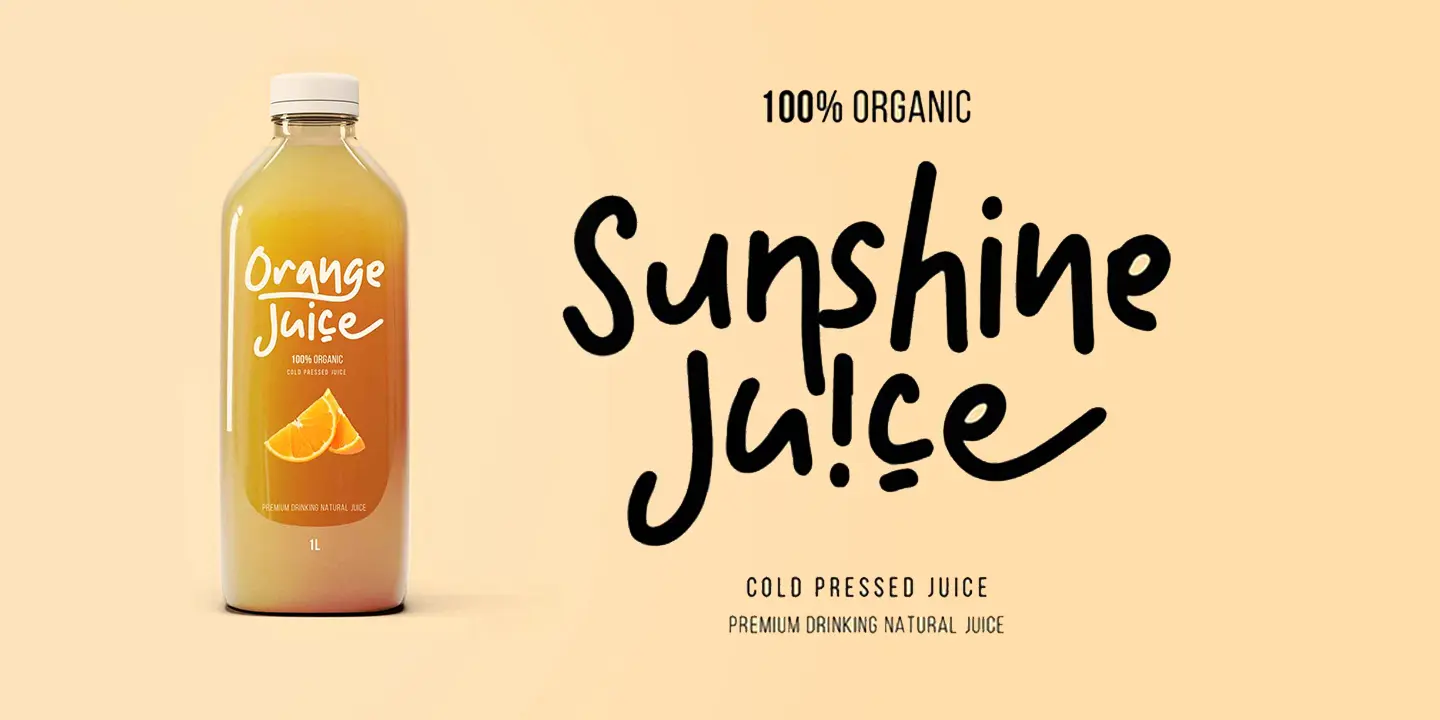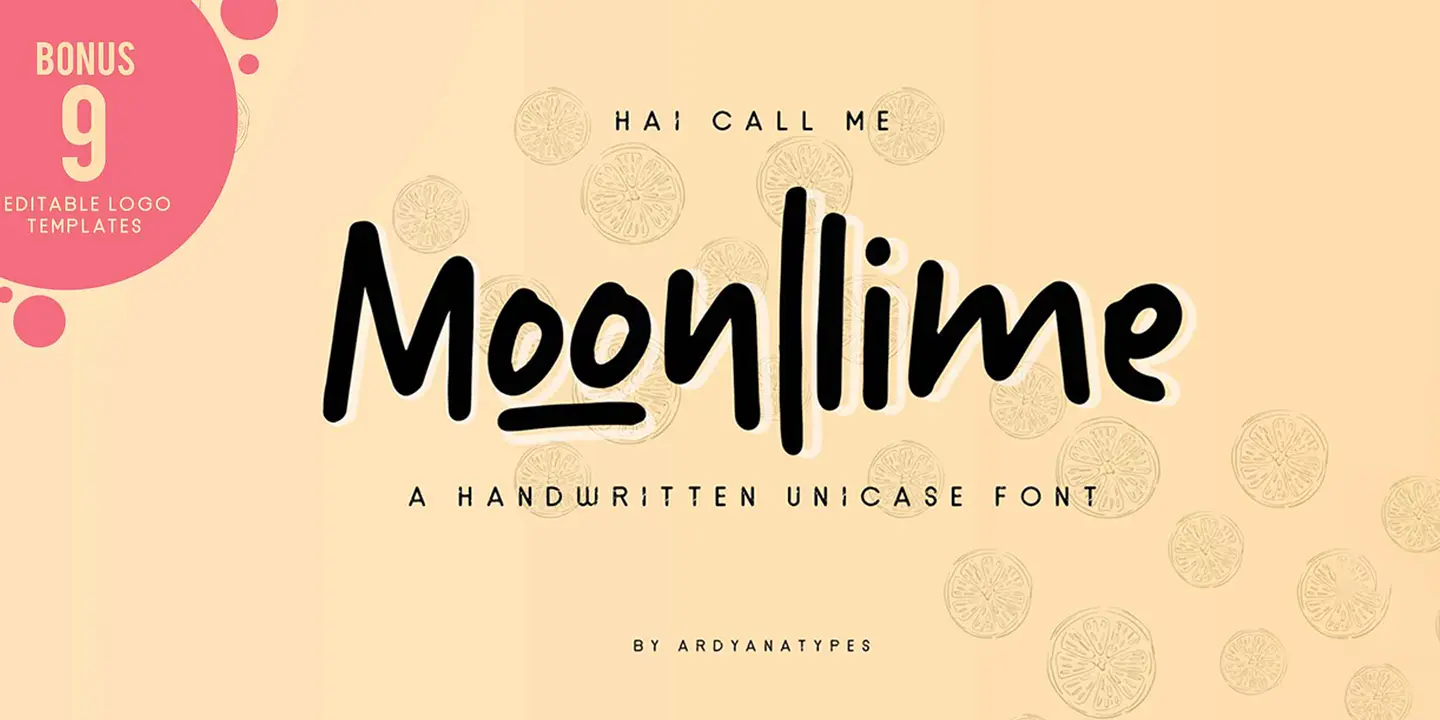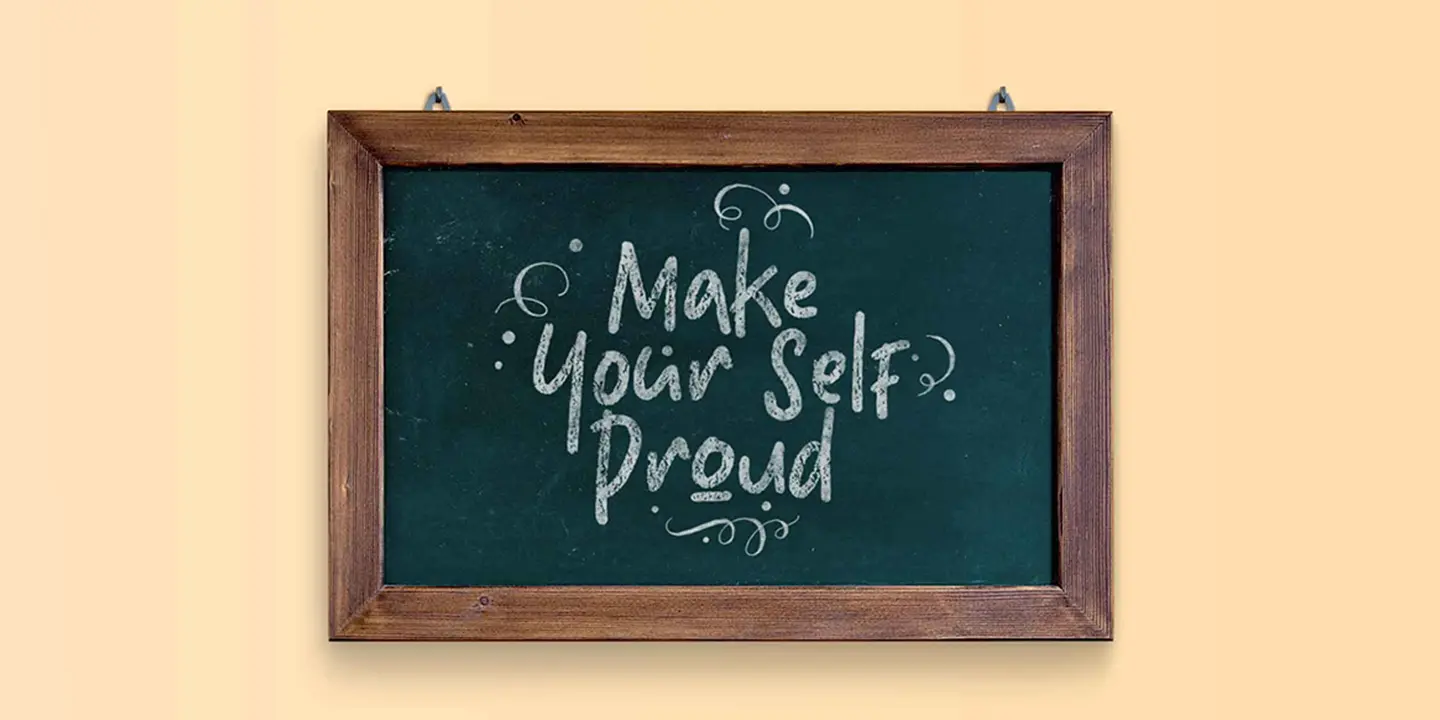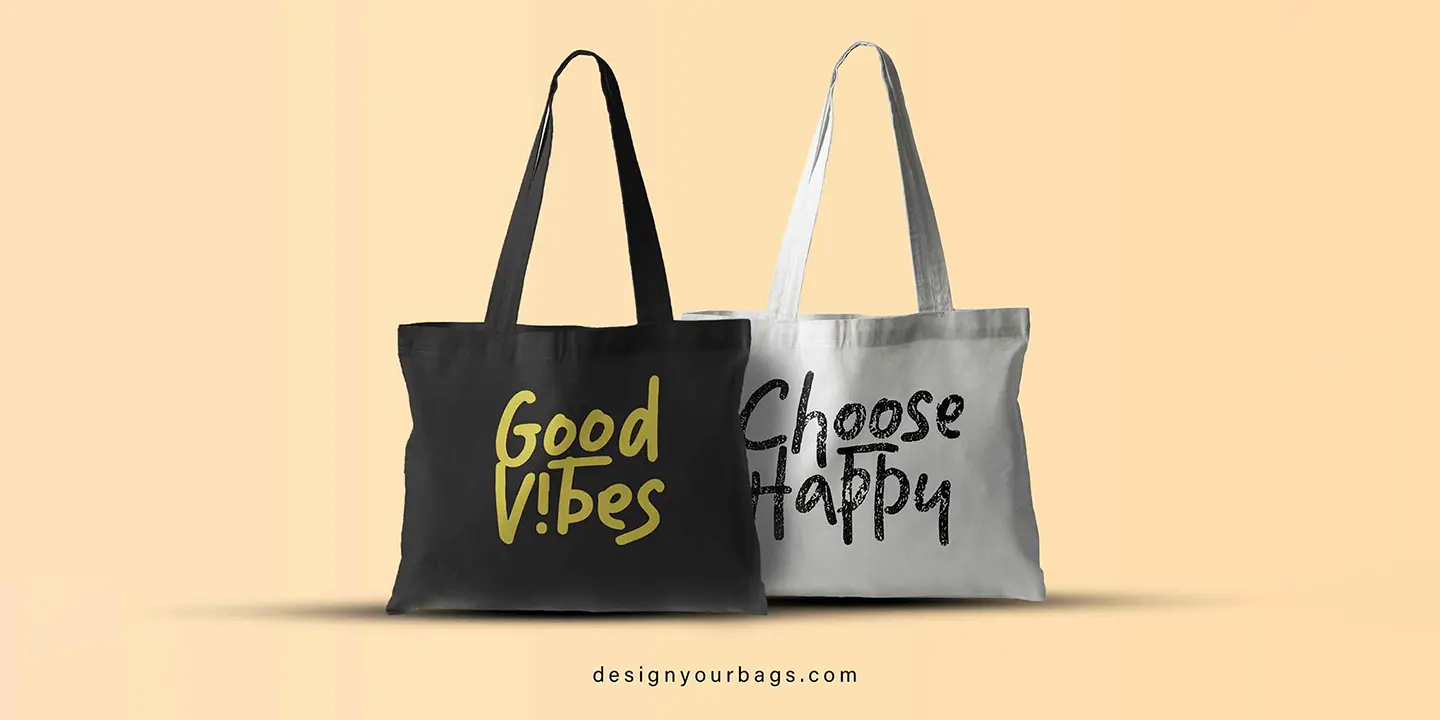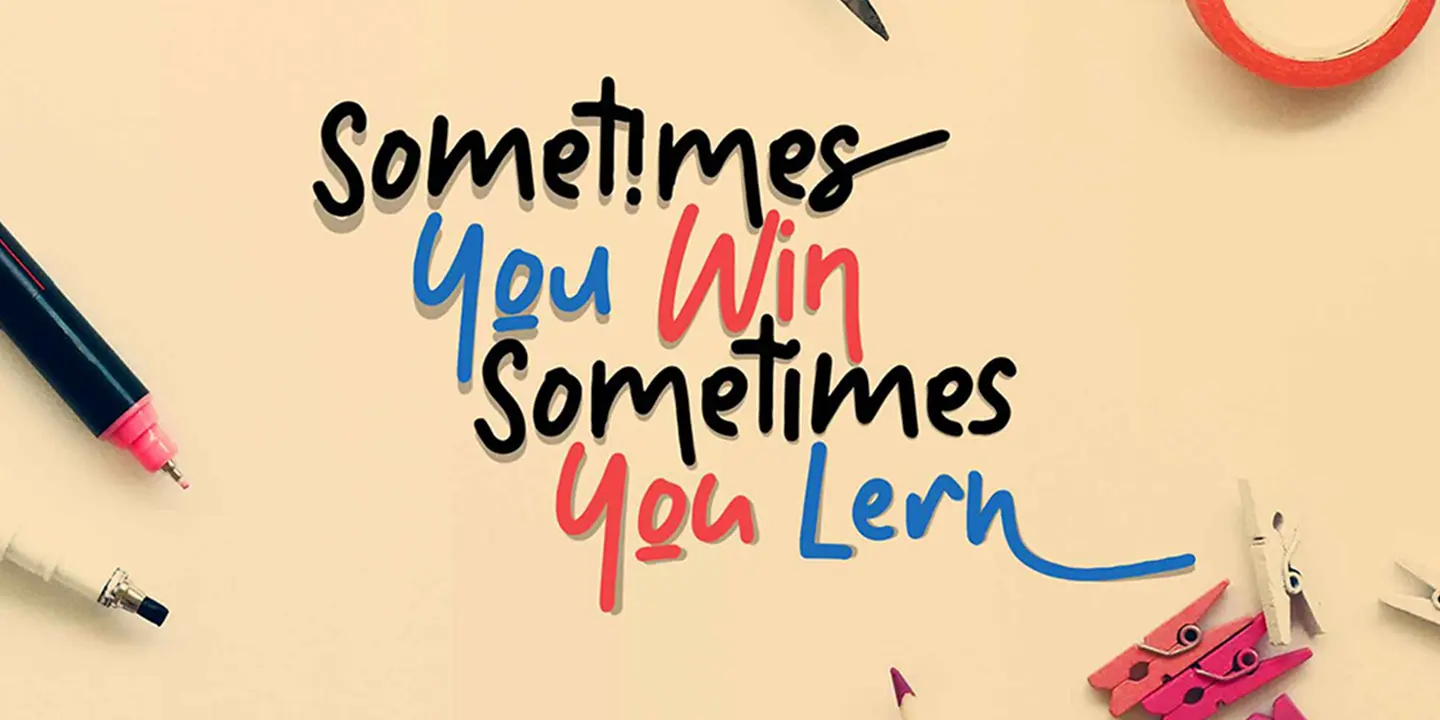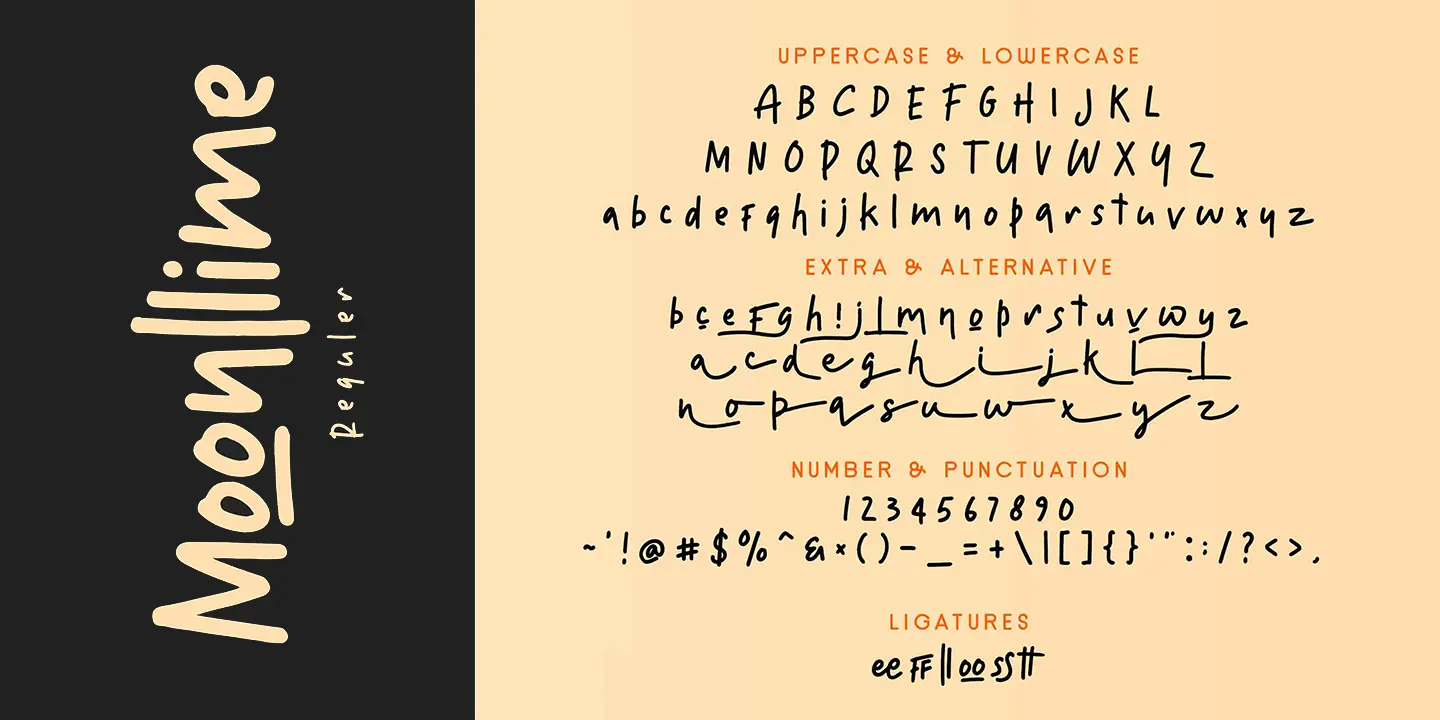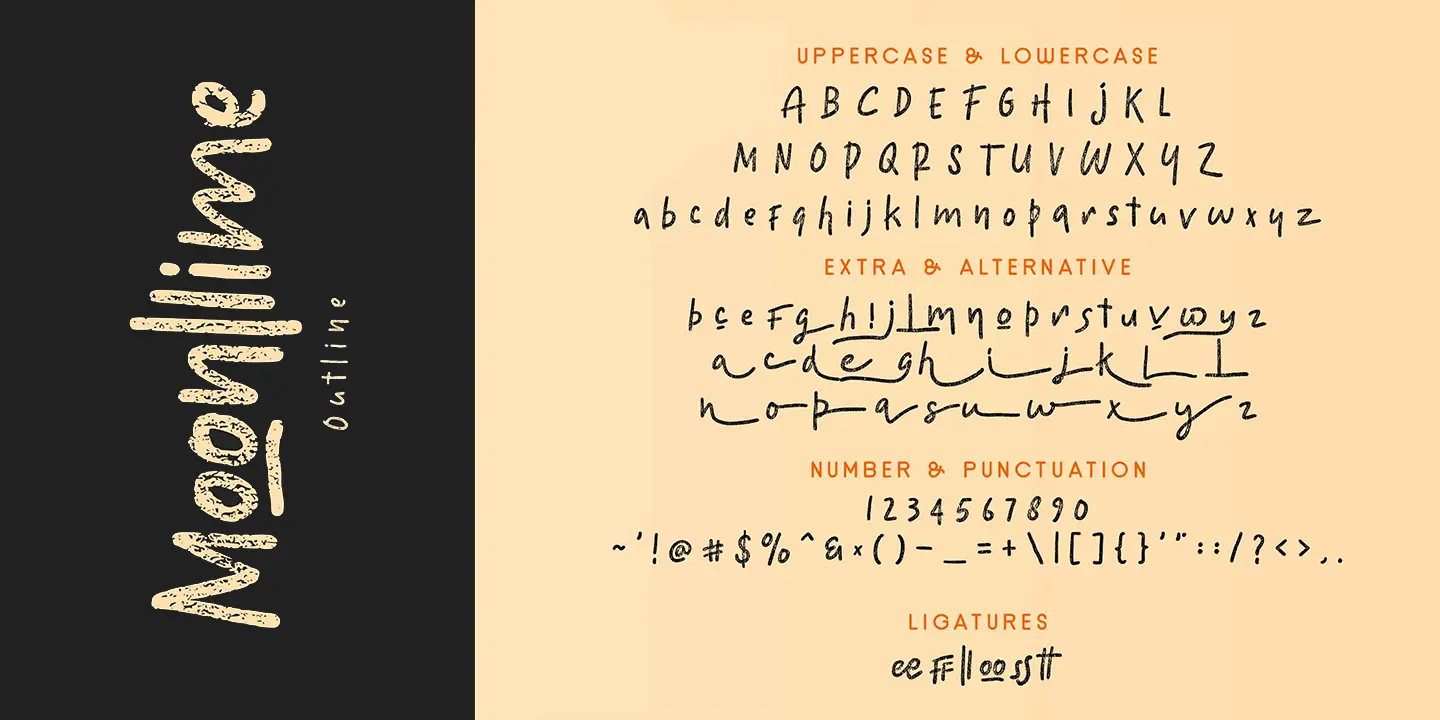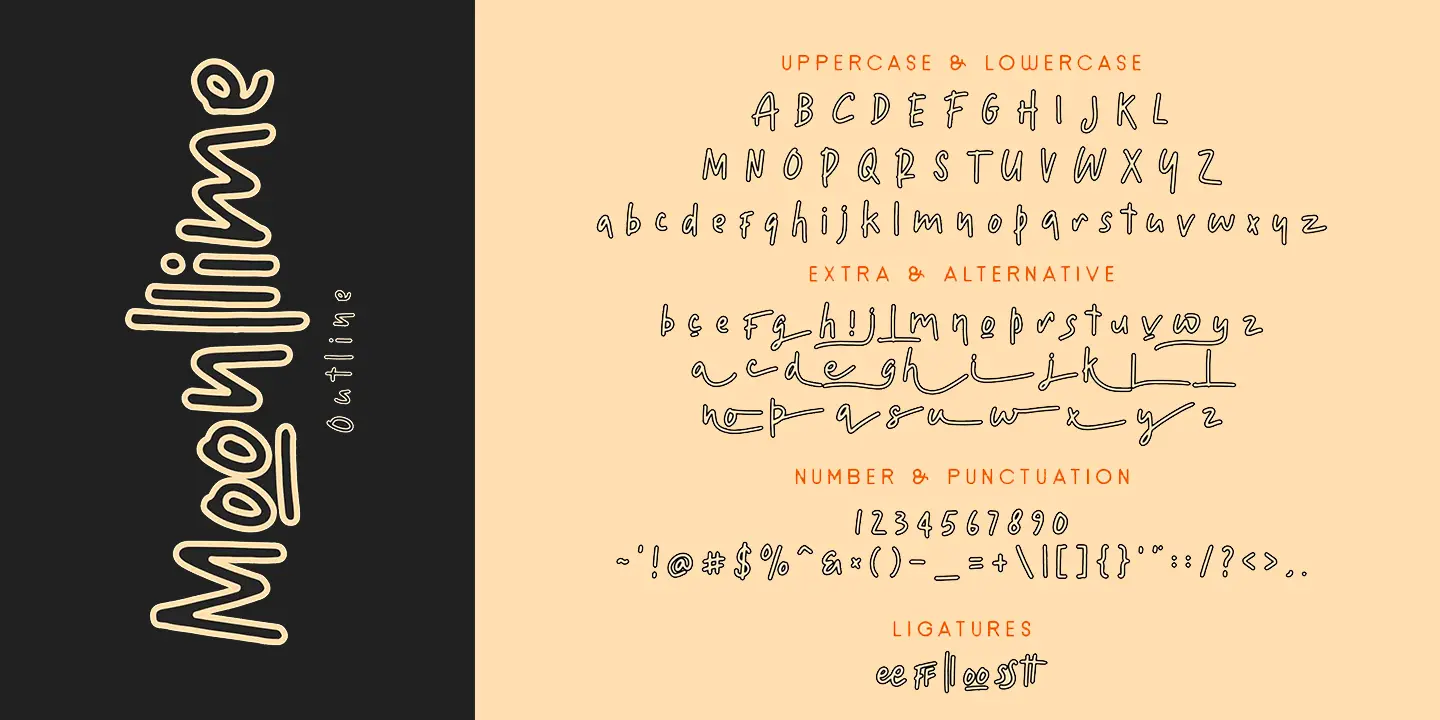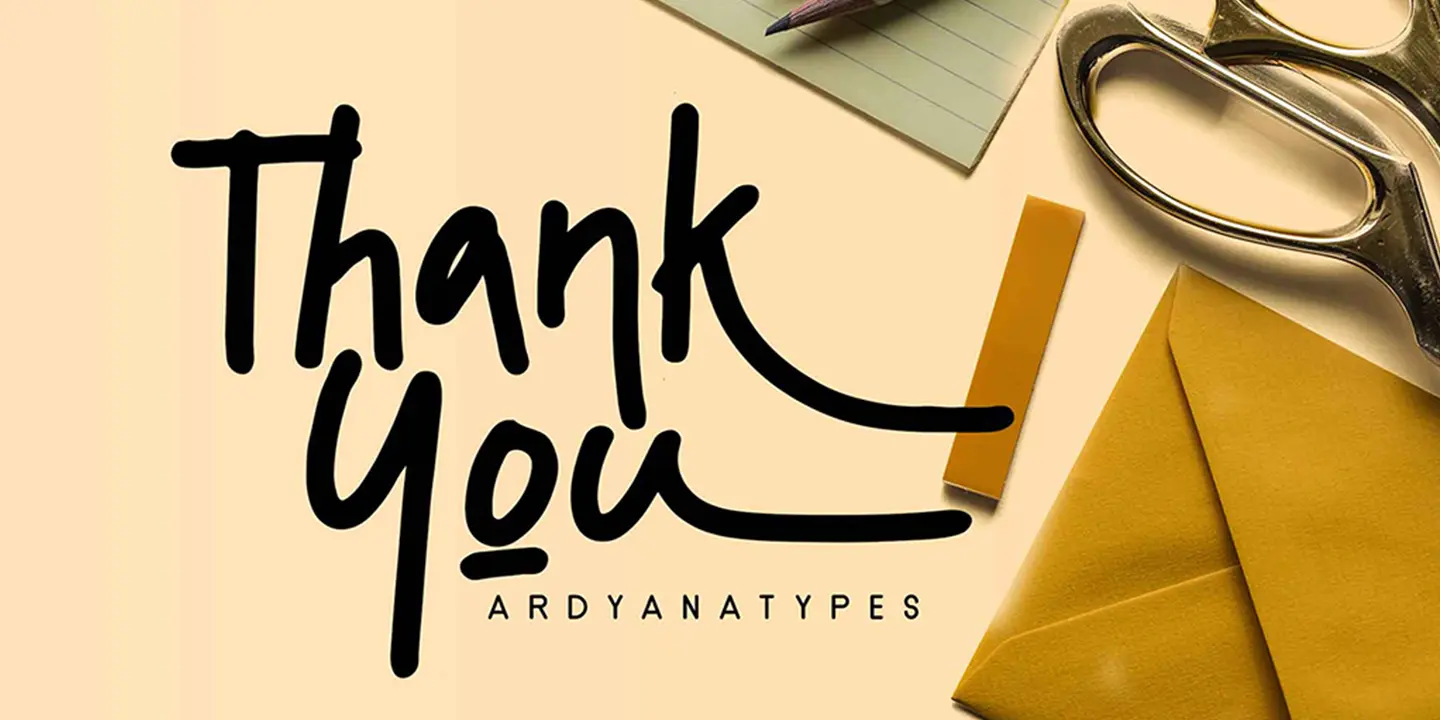
Moonlime
3 Styles
Moonlime is a simple and very casual typeface. comes with very interesting hand strokes, moonllime has 3 variants including moonllime solid, chalk and oulinet, which will give you many choices to use in each of your designs, moonllime also has many opentype features that you will like, this font is very suitable as a logo , quotes, clothing designs, wedding invitations, and more. You can play with ligatures, alternative styles, swash, etc. to make your own custom letters.